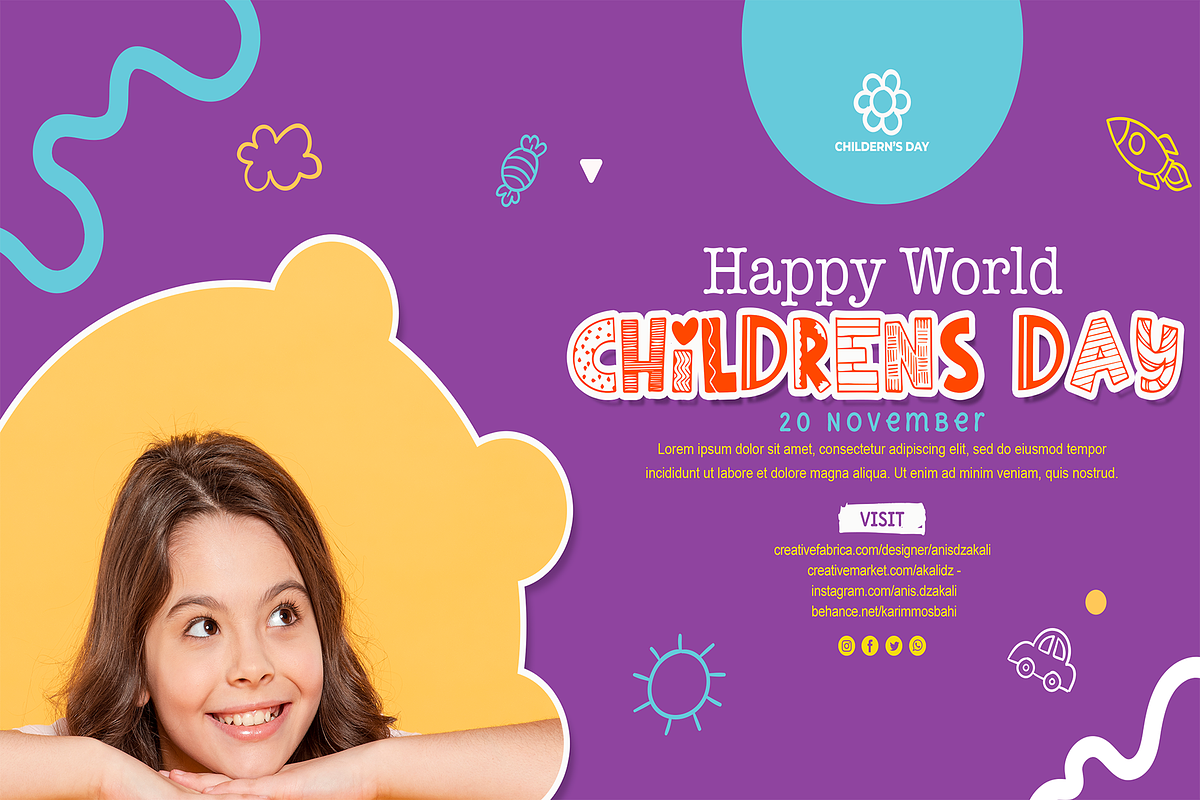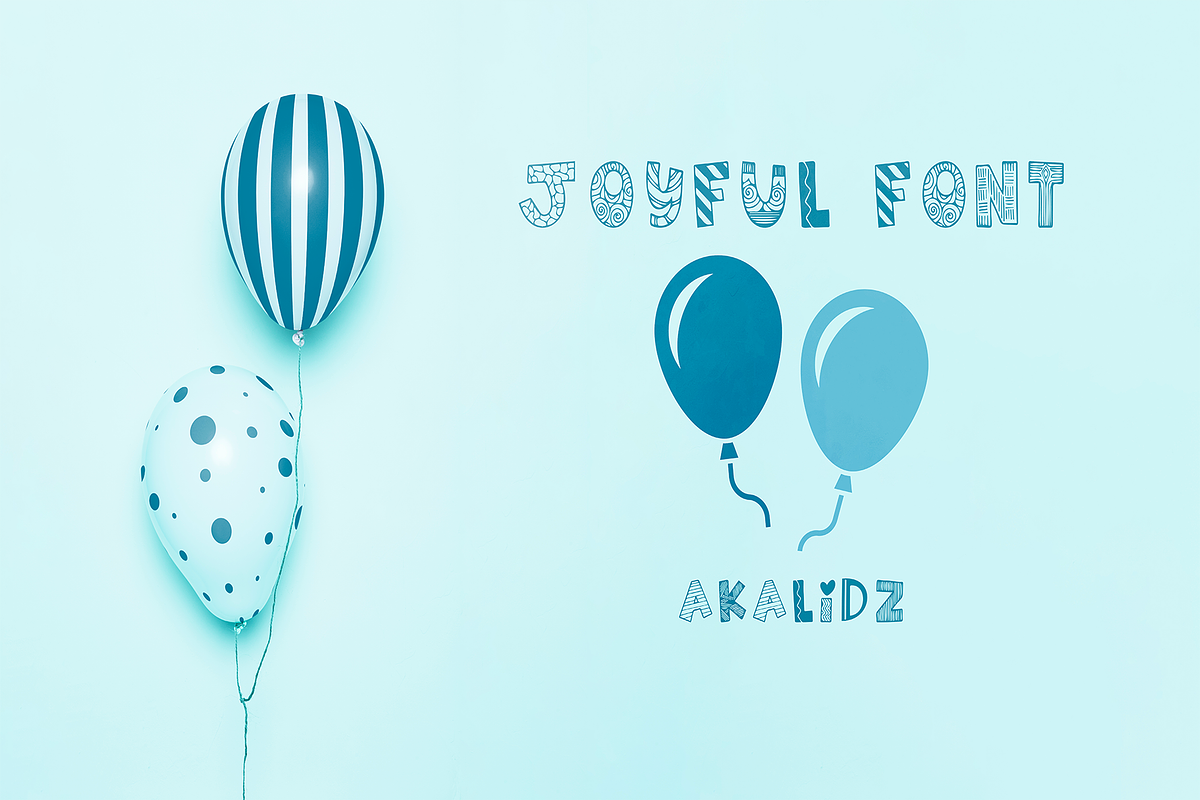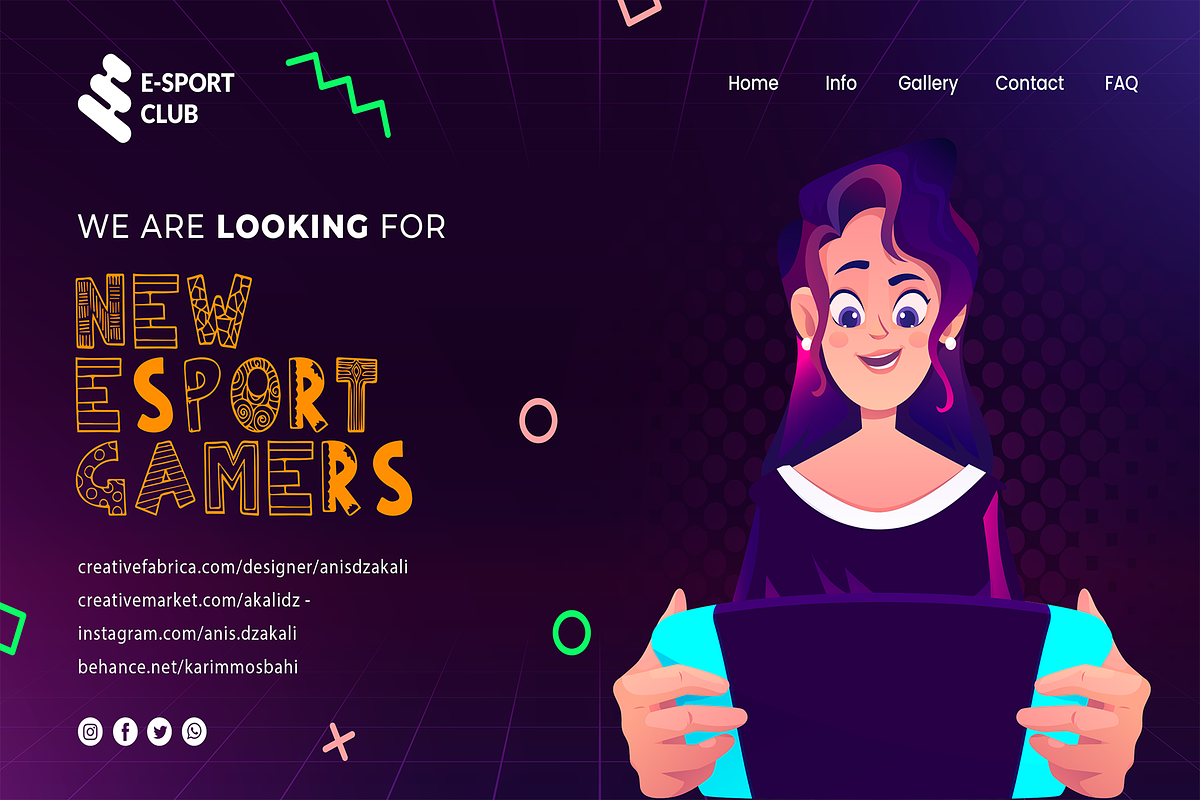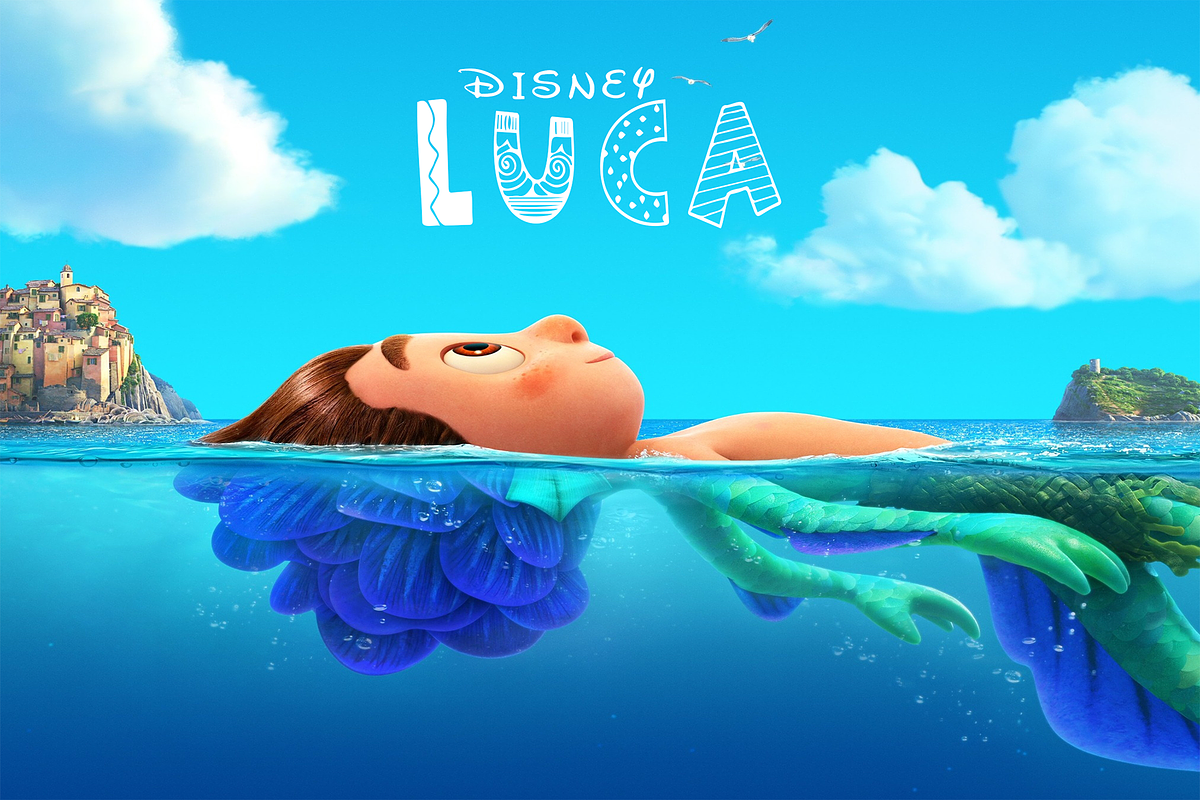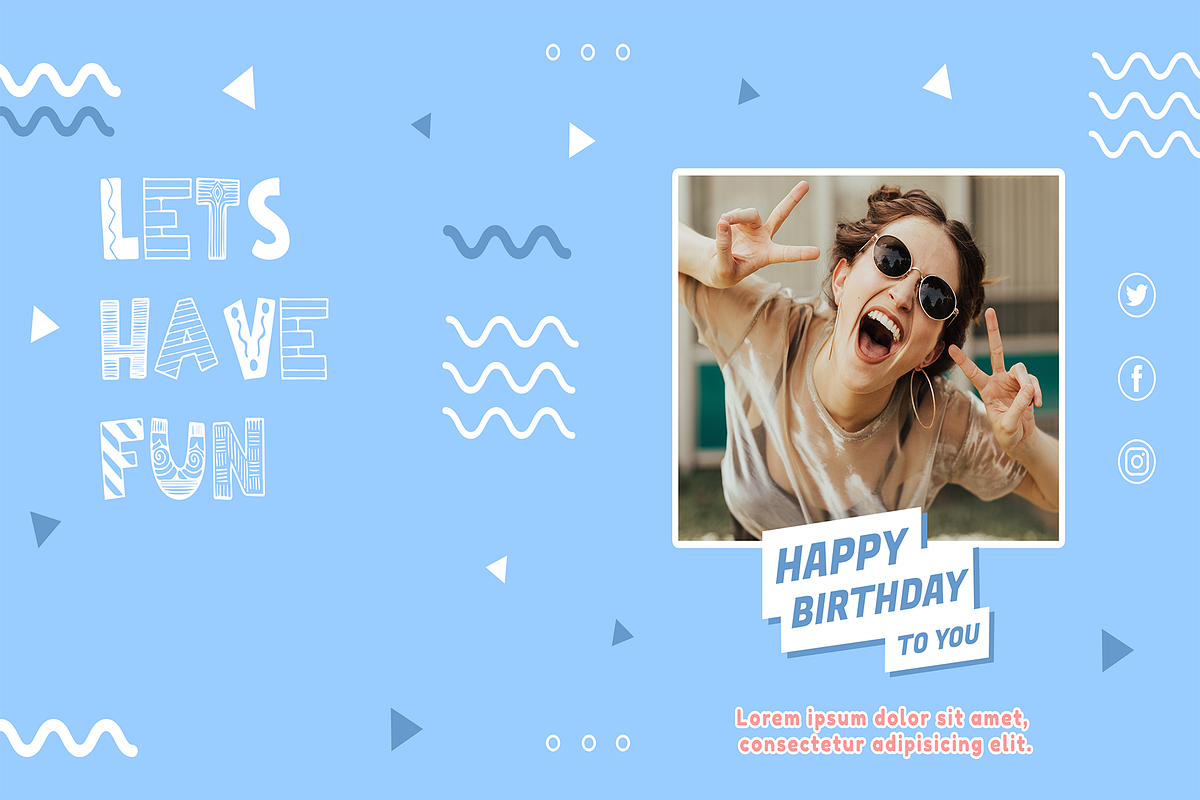
JOYFUL
Comics Komaiza is a cool, cheery and fun decorative font. Whether you’re using it for crafting, digital designing, presentations or greeting cards making, it’s perfect!